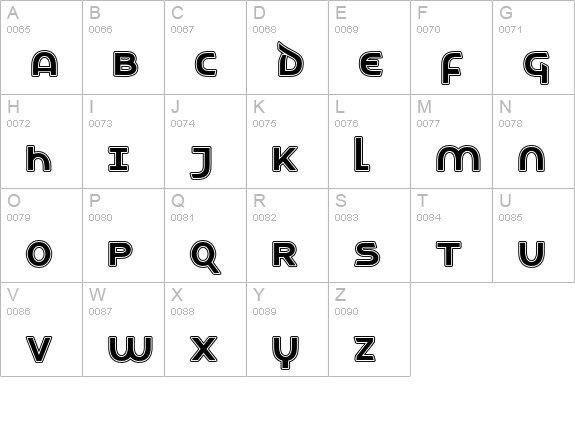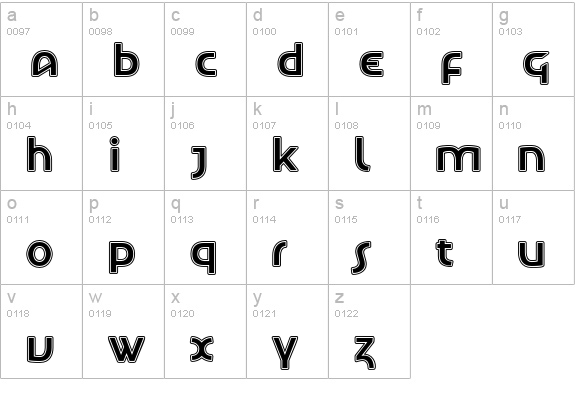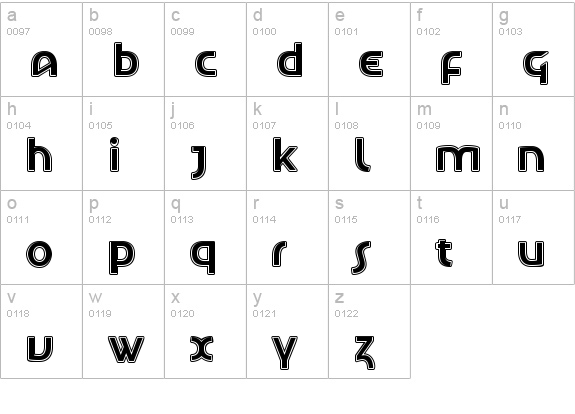
TechnoInline is a cutting-edge font that perfectly captures the futuristic essence of the techno era. With its sleek and modern design, this font is the perfect choice for those seeking to add a touch of contemporary flair to their projects. Featuring sharp angles and geometric shapes, TechnoInline exudes a sense of boldness and innovation. Its clean lines and distinct strokes make it highly legible, ensuring that your message will be conveyed with clarity and impact. But what sets TechnoInline apart from other fonts is its availability. That's right, this exceptional typeface is absolutely free! With just a few clicks, you can easily download TechnoInline at FontsMarket.com, a reliable and trusted source for all your font needs. Whether you're designing a website, creating eye-catching advertisements, or crafting a logo, TechnoInline's versatility knows no bounds. It effortlessly blends into any design, seamlessly complementing both digital and print media. So why wait? Embrace the future and make a statement with TechnoInline. Download this remarkable font today and unleash your creativity like never before. FontsMarket.com is ready to provide you with the tools you need to elevate your projects to new heights.